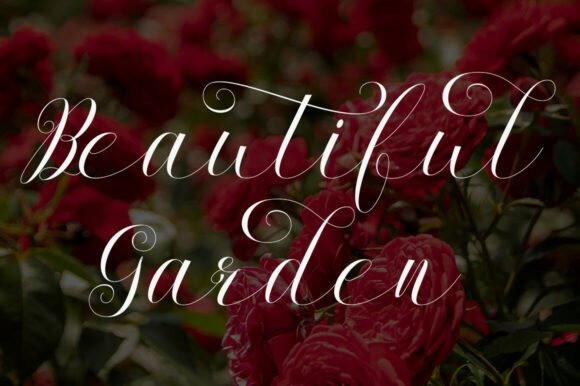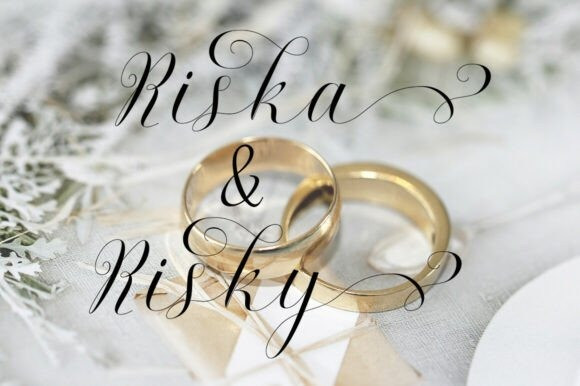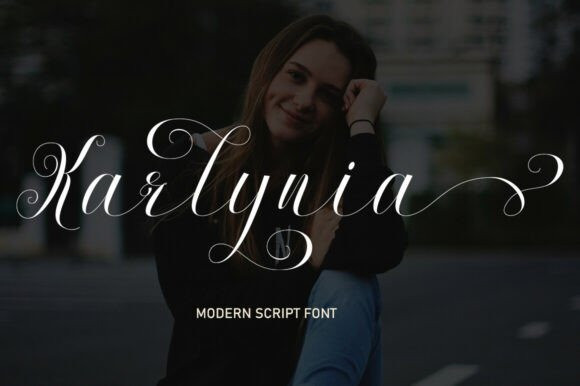
Karlynia Font
Karlynia Font is a modern calligraphy font with an elegant, irregular baseline and a contemporary, feminine style. It is designed to bring a refined look to projects such as wedding invitations, thank you notes, greeting cards, quotes, logos, and business cards. The font works especially well with ink and watercolor-based designs.
Karlynia includes a complete set of initial and terminal forms, stylistic alternates, ligatures, and multilingual character support. These features allow for flexible and expressive typography, suitable for both personal and commercial use.